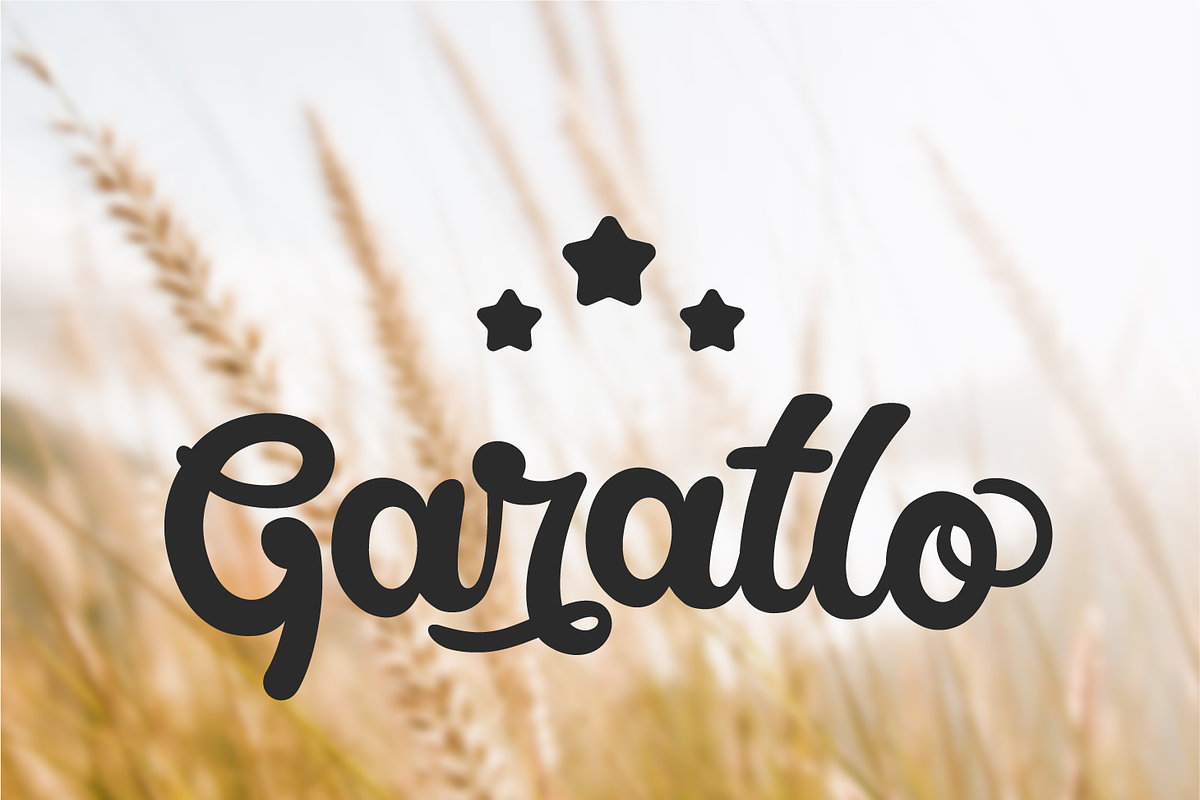
Garatlo I Script Family Free Download offers a luxurious and flowing script style that’s perfect for elegant design projects. Please note, you are required to purchase this font for commercial use. It is available for free download for testing and personal projects only.
This script font family features beautifully crafted letterforms with smooth curves and graceful connections, making it ideal for wedding invitations, branding, high-end packaging, and social media graphics. Its versatility across different weights and styles gives designers the flexibility to create both classic and contemporary aesthetics.